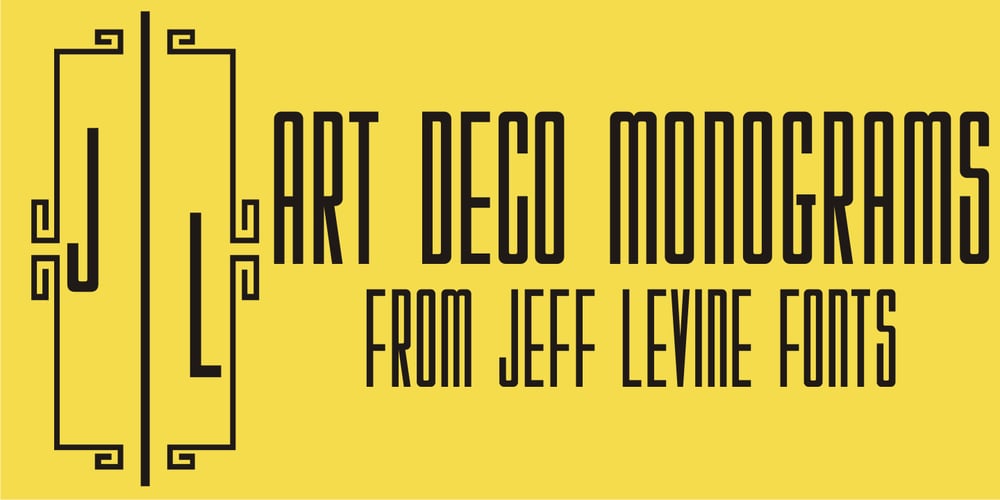
Art Deco Monograms JNL
Art Deco Monograms JNL Font Family was designed by Jeff Levine and published by Jeff Levine. Art Deco Monograms JNL contains 1 styles and family package options. The same monograms found on a 1930s-era business card that inspired Golden Beach JNL are reproduced as Art Deco Monograms JNL. Left-side monograms are on the upper case A-Z, while the lower case a-z are the right side monograms. A vertical bar is on the period key for a centerpiece between the two initials.